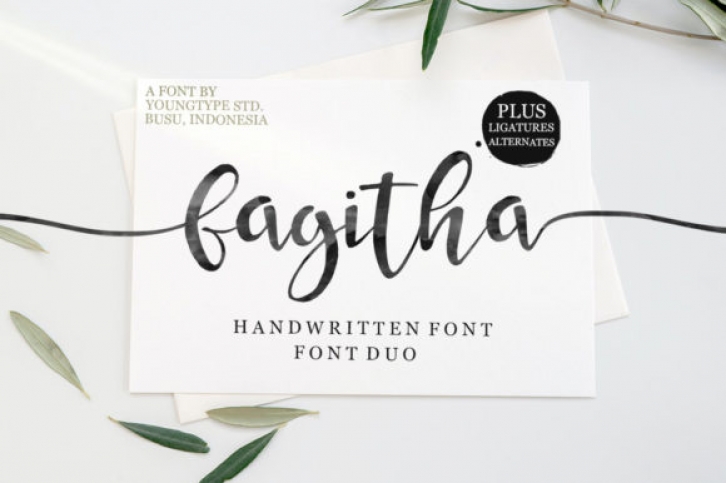
Fagitha is a lovely duo handwritten font. Simple but with a strong visual effect, this font will instantly make your creation more appealing than any others. Fagitha is PUA encoded which means you can access all of the glyphs and swashes with ease!